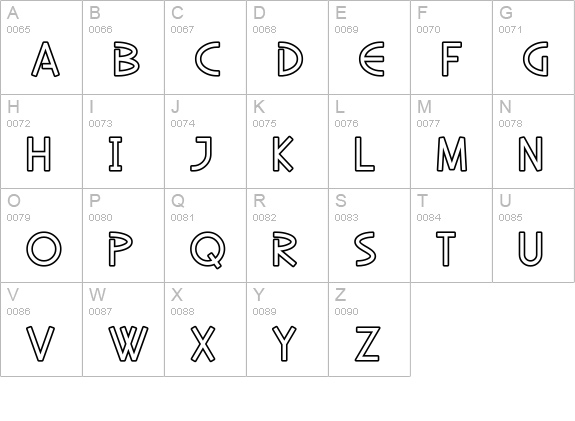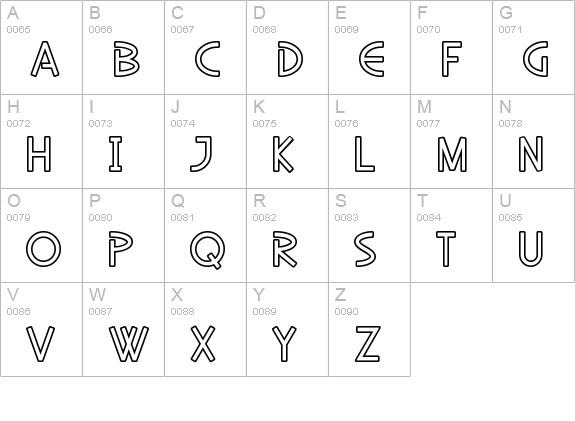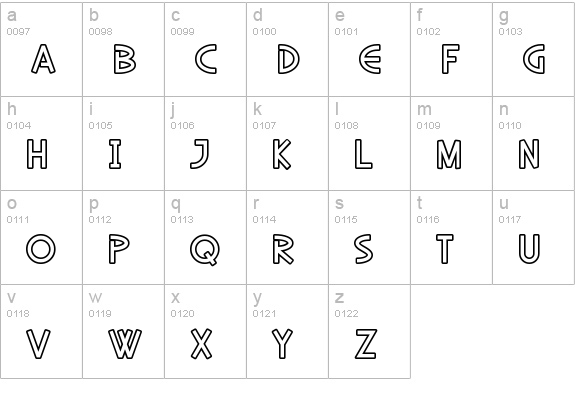
SF Diego Sans Outline Font Details
SF Diego Sans Outline is a stunning display font that combines the elegance of sans-serif typography with a playful and modern twist. This font is the perfect choice for creating eye-catching headlines, posters, logos, and other design projects that require a touch of sophistication. With its clean lines and balanced proportions, SF Diego Sans Outline exudes a sense of professionalism and clarity. The outline style adds a unique and captivating visual element, making your designs stand out from the crowd. One of the best things about SF Diego Sans Outline is that it is free. Yes, you read that right – this incredible font is available for free download at FontsMarket.com. You can easily access this font and start using it in your projects without any restrictions or limitations. Whether you are a professional designer, a student, or someone who simply loves experimenting with typography, SF Diego Sans Outline is a must-have font in your collection. Its versatility and timeless appeal make it suitable for a wide range of design styles and applications. So why wait? Head over to FontsMarket.com and get your hands on this amazing font. With SF Diego Sans Outline, you can elevate your designs to new heights and make a lasting impression on your audience. Don't miss out on this opportunity to enhance your creative projects with a high-quality, freely available font.